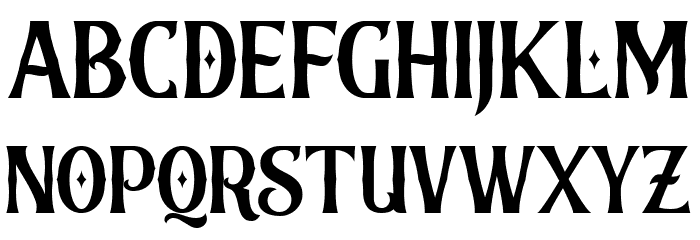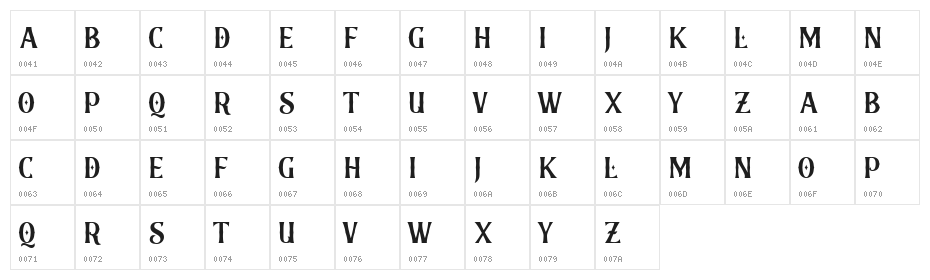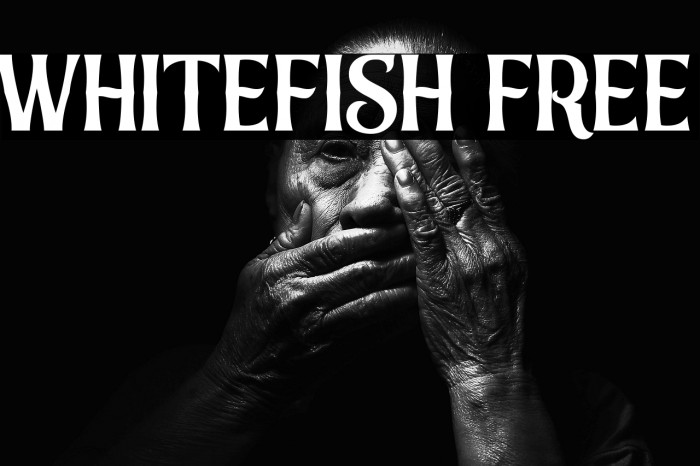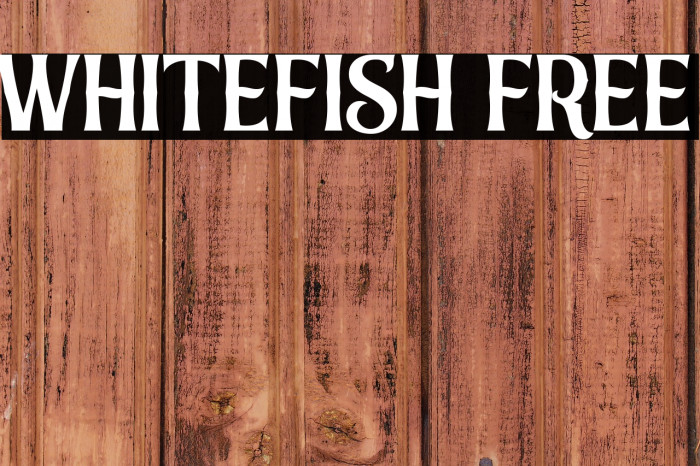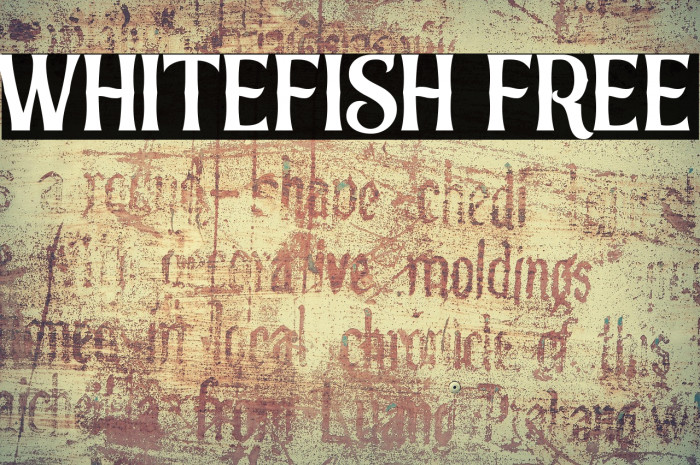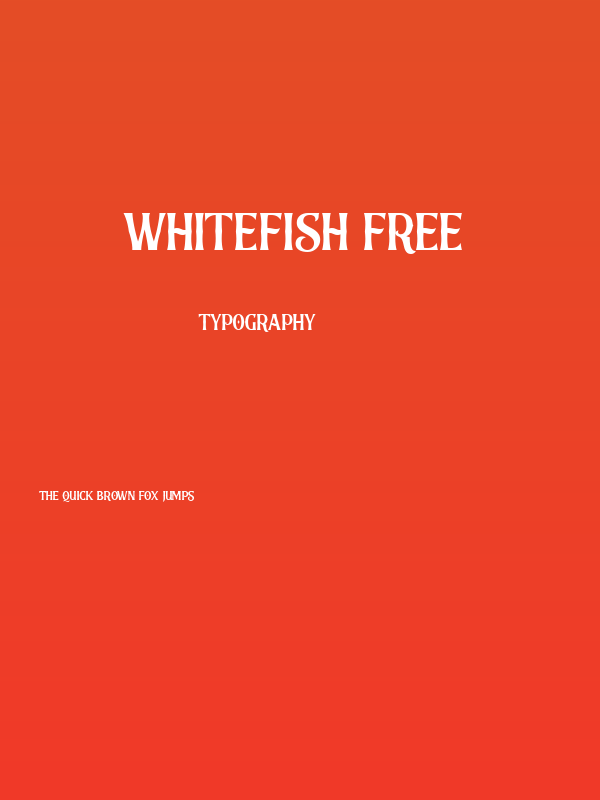
Whitefish FREE Font
Whitefish FREE Description
This font features a bold and distinctive style with sharp, angular serifs and a slightly condensed form. The characters exhibit a unique blend of modern and vintage aesthetics, with a high contrast between thick and thin strokes. The uppercase letters are particularly striking, with some characters incorporating decorative elements that add a touch of elegance and flair. The overall design is both eye-catching and legible, making it suitable for a variety of creative applications. The font's boldness and unique character shapes make it ideal for projects that require a strong visual impact.
| Overall Style | Modern, Vintage |